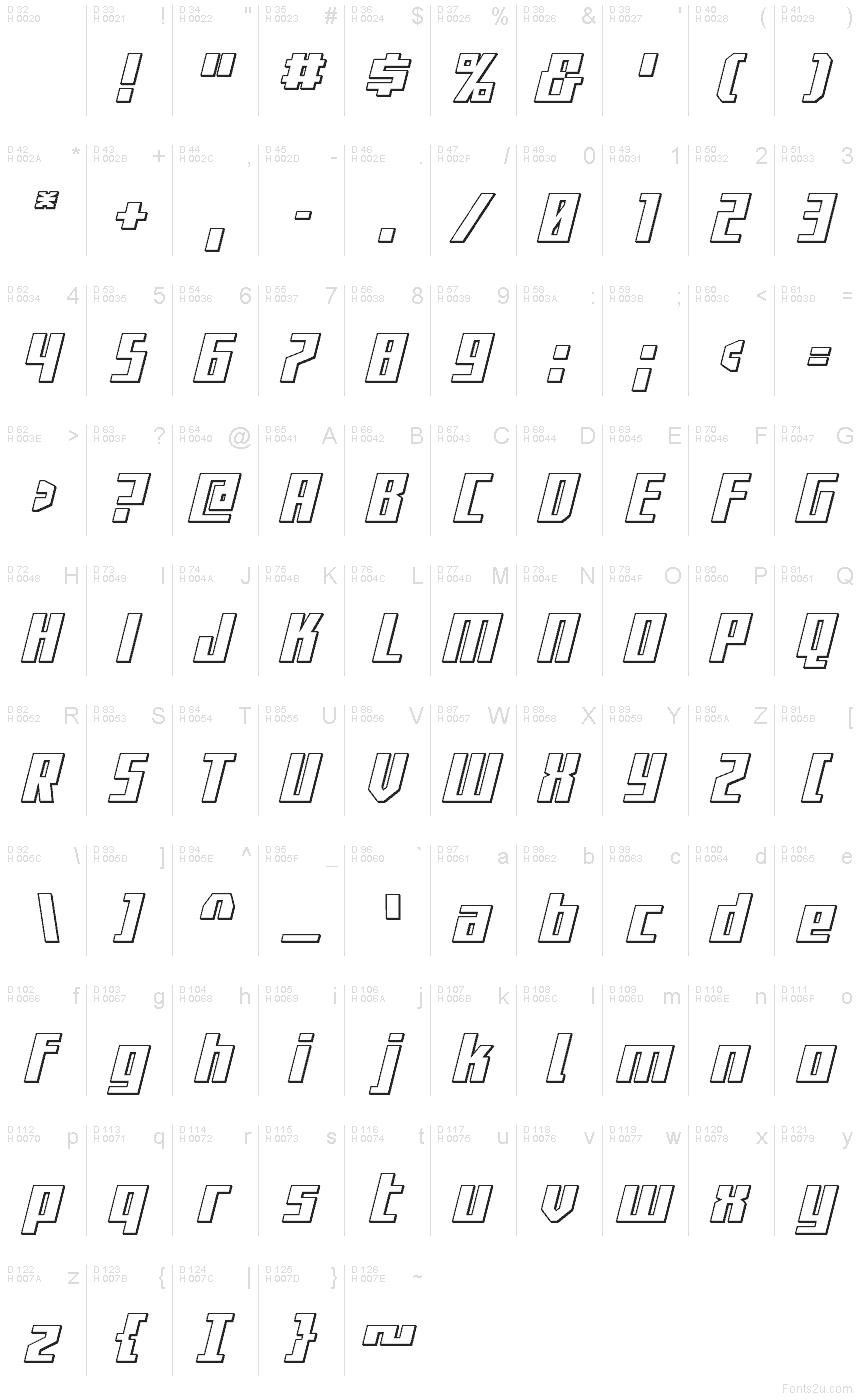
Capitol City 3D
Capitol City 3D font is a modern, geometric display typeface from Iconian Fonts with rounded angles and futuristic vibes. Its bold weight and condensed width are highlighted through its techno style that’s topped off with a perfect 3D finish. Angular details within each letter give the font a perfected look that combines the past, present, and future times.
Use this free 3d display font in eye-catching advertising designs or workbench your poster and magazine covers for more impressive results. Book covers, packaging labels, digital art projects, websites, brand names/logos, video folders & intros are other great design ideas to explore this eclectic font in.